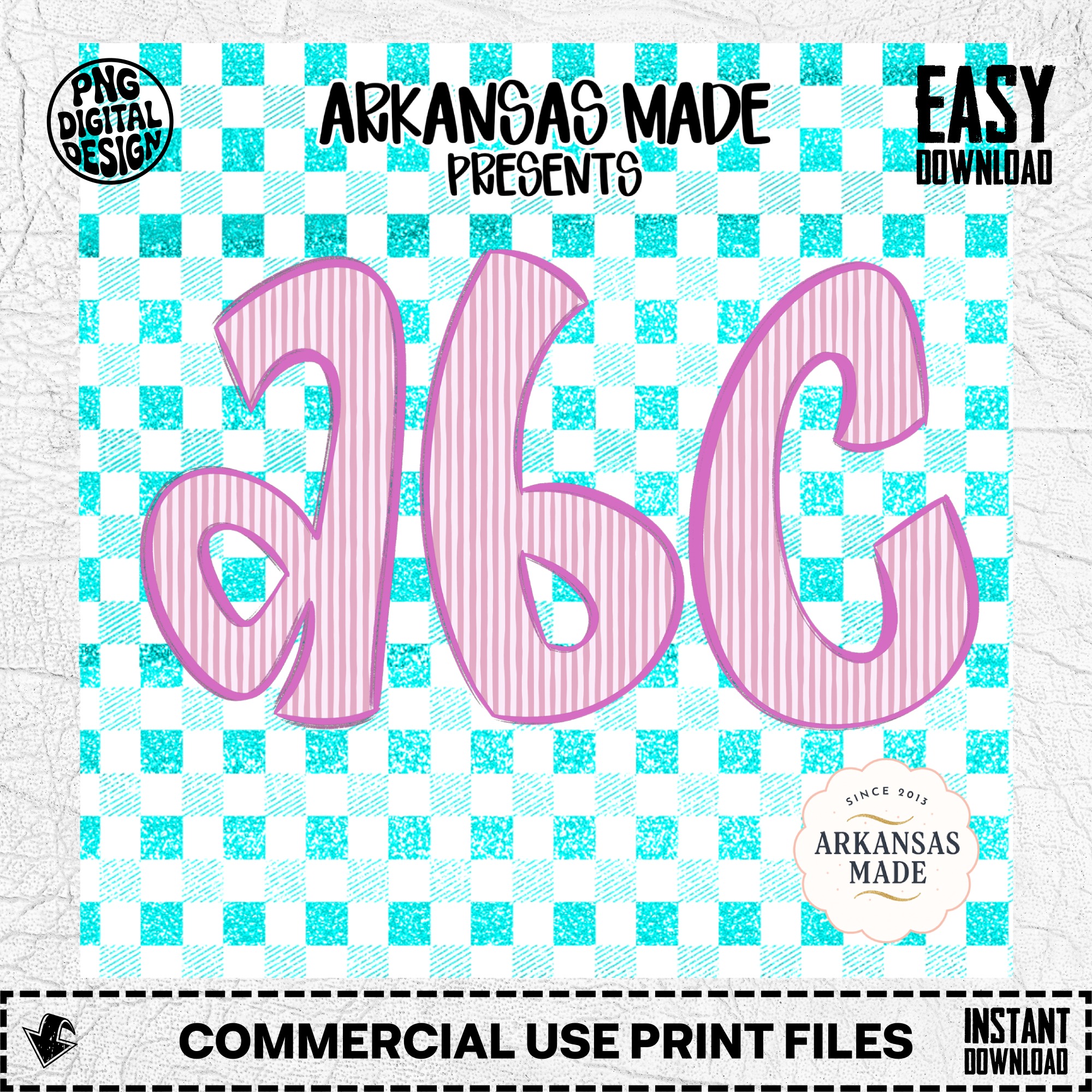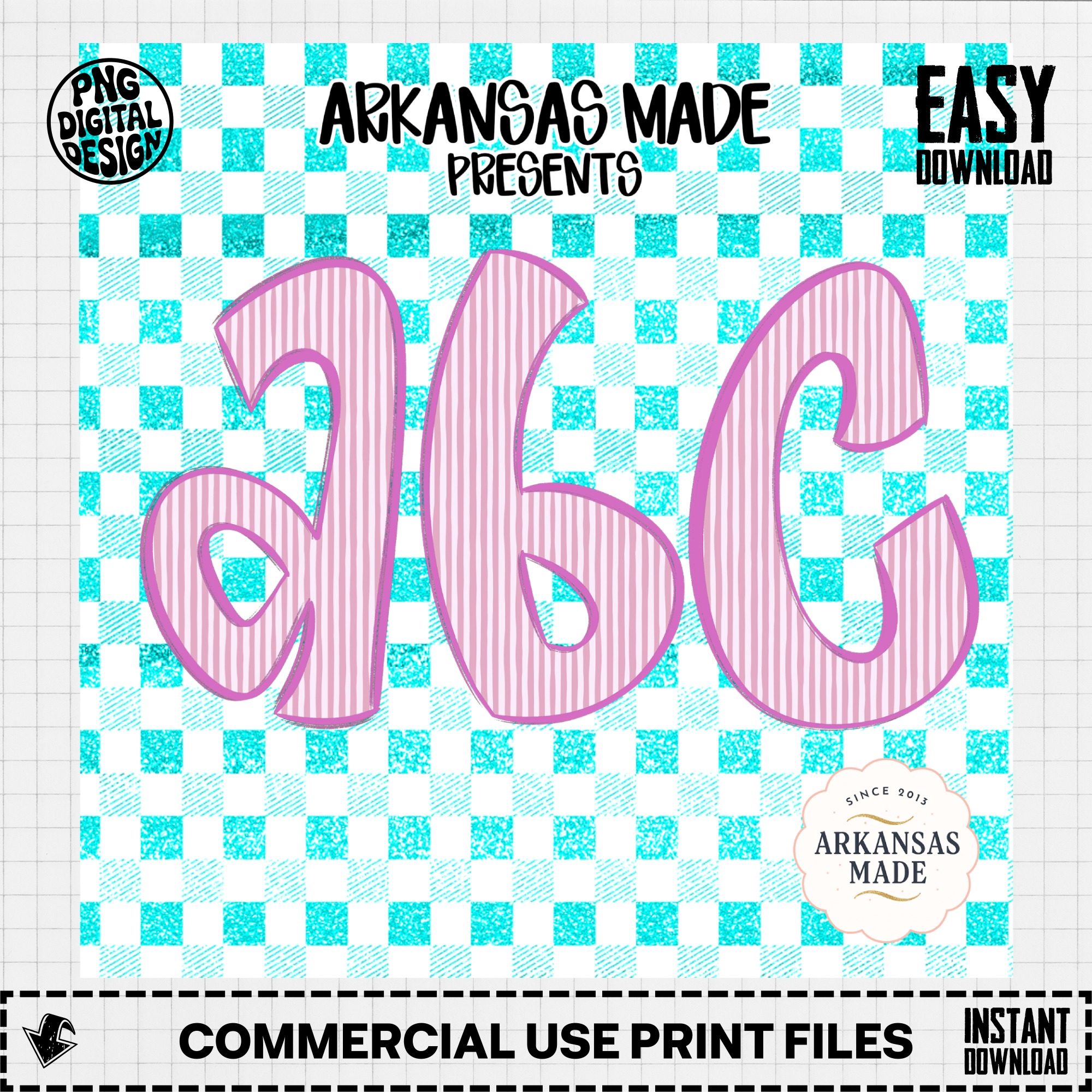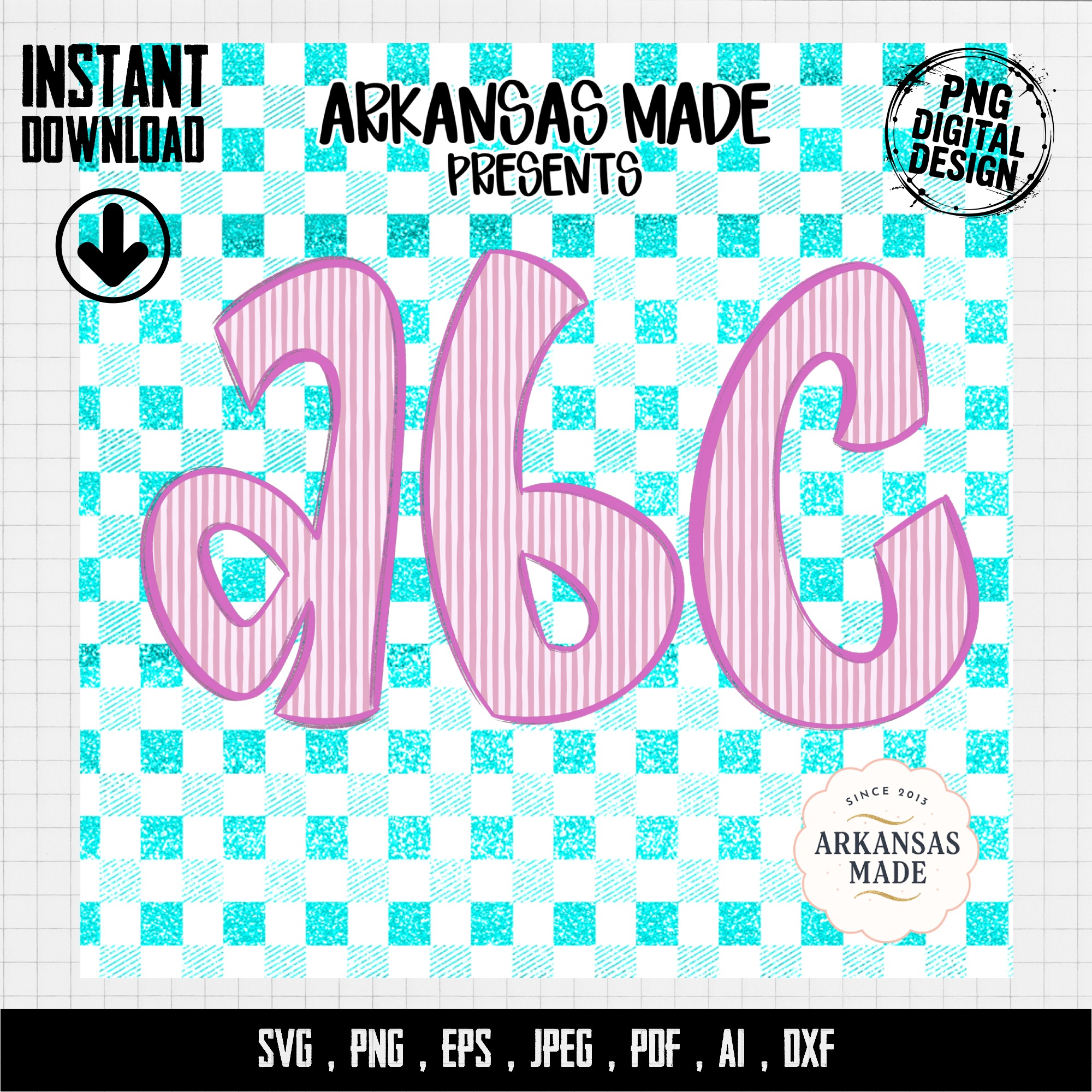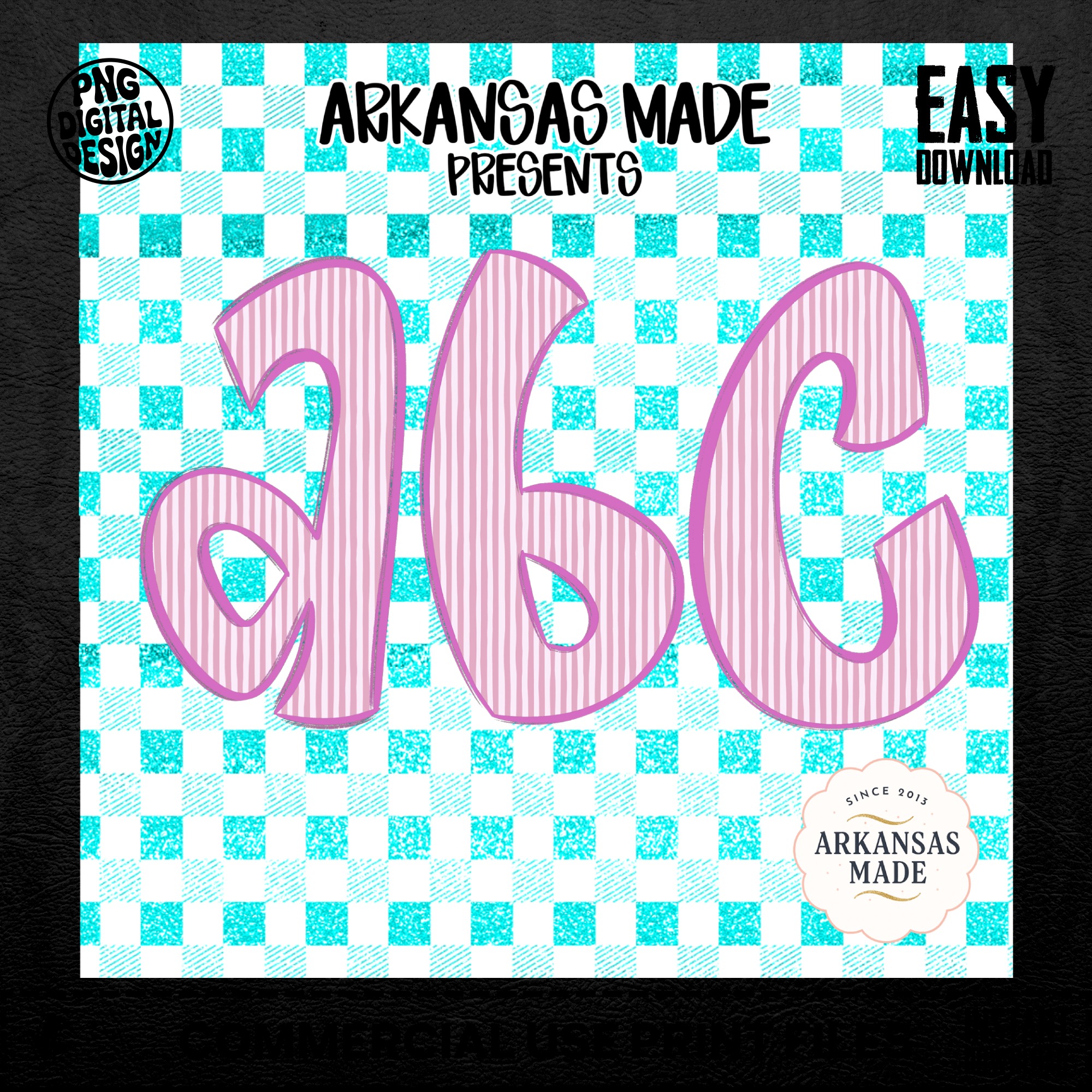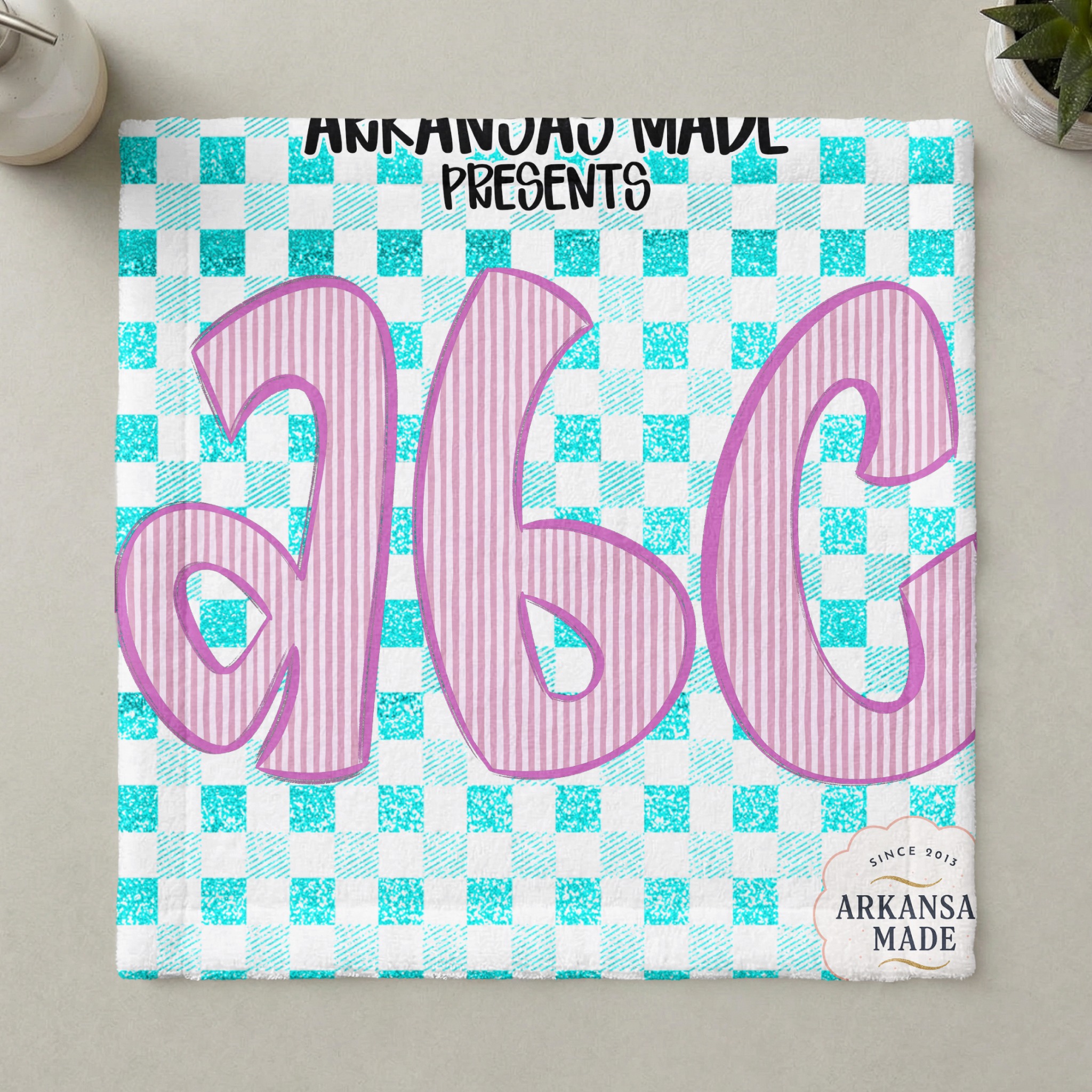
Elevate your creative projects with this charming Pink Striped Letters Full A-Z Alphabet digital download. This unique collection features a playful alphabet with delightful pink stripes and a subtle hand-drawn texture, perfect for adding a whimsical touch to any design. Each letter is set against a vibrant teal glitter checkered background, blending a classic gingham or buffalo plaid pattern with a modern sparkle.
* Includes a complete Full A-Z Alpha collection, ready for instant use.
* The glittery aqua and pink aesthetic makes it perfect for cheerful and eye-catching creations.